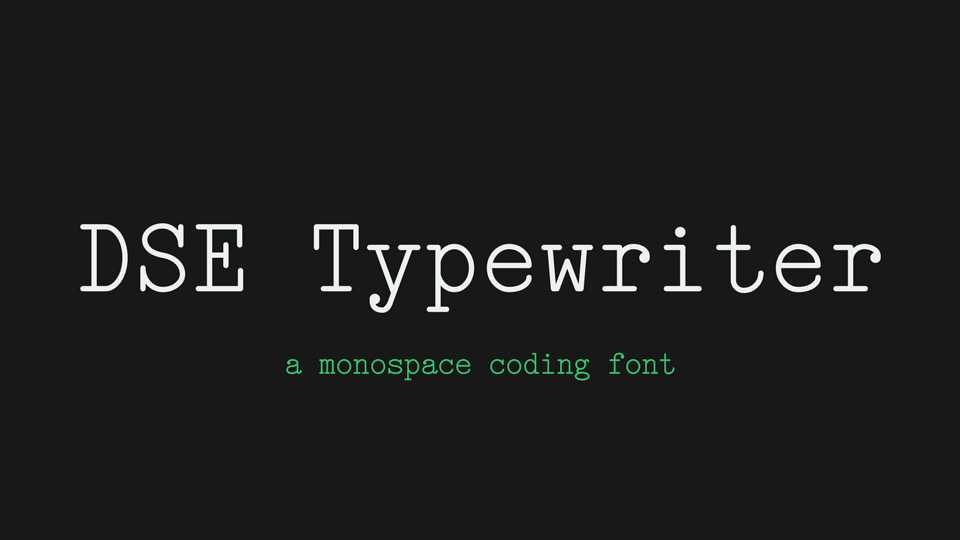
Download DSE Typewriter font, is a monospace coding typeface inspired by early 20th-century typewriters. Perfectly useful as a traditional typewriter face for other purposes.
Designer: Darren Embry